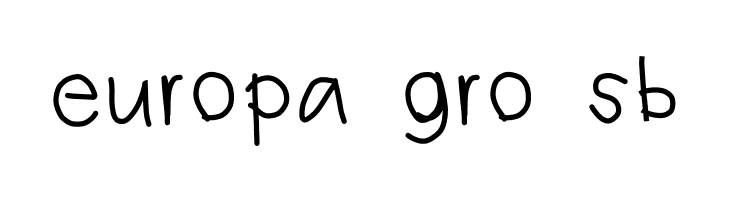
A playful, handwritten font with bold, rounded characters.
A playful, handwritten-style font with rounded, irregular strokes.
A playful, handwritten-style font with rounded, casual characters.
A decorative font with characters wrapped in horizontal stripes, offering a playful and whimsical style.
A collection of decorative geometric and abstract symbols.
A diverse collection of geometric and abstract symbols with bold, dynamic designs.
A classic serif font with elegant, sharp serifs and balanced stroke contrast.
A playful, handwritten font with dynamic and fluid strokes.
A modern, geometric sans-serif font with a clean and professional appearance.
A modern, geometric sans-serif font with consistent stroke widths.
A modern, geometric sans-serif font with a clean and minimalist design.
A bold, geometric font with strong lines and a modern aesthetic.
A bold, geometric font with a modern and impactful style.
A futuristic, angular font with a hollow, outlined design.
A bold, oblique font with a dynamic, framed style ideal for impactful designs.
A bold, modern font with a geometric influence and strong visual impact.
A bold, modern font with a blurred effect and rounded characters.
A rugged, distressed font with heavily textured, irregular edges.
A modern, oblique font with bold, slightly condensed characters and medium contrast.
A bold, outlined font with a modern and geometric style.
A bold, modern font with a slightly condensed and dynamic style.
A bold, 3D decorative font with a playful and dynamic style.